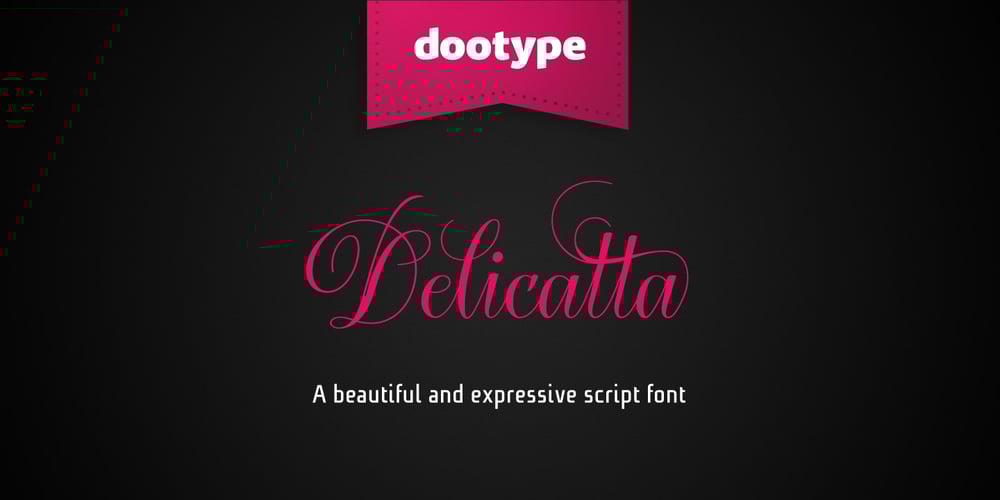
Delicatta Font Family was designed by Eduilson Wessler Coan and published by dooType. Delicatta contains 1 styles and family package options. “Delicatta” is a beautiful and expressive script font by dooType. You can use it in many areas such as packaging, invitations, magazines and posters. This version contains Opentype Features including alternates and ligatures that you can use as needed. Check in gallery for some images. Enjoy!